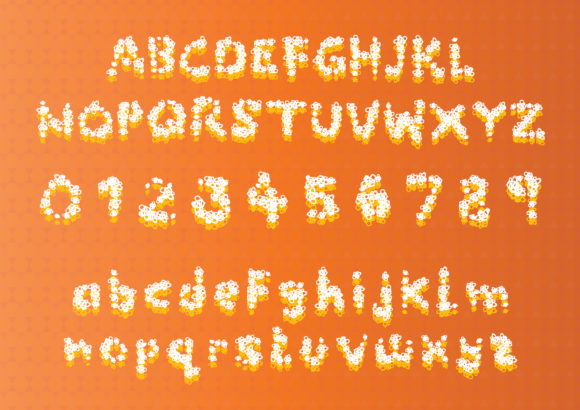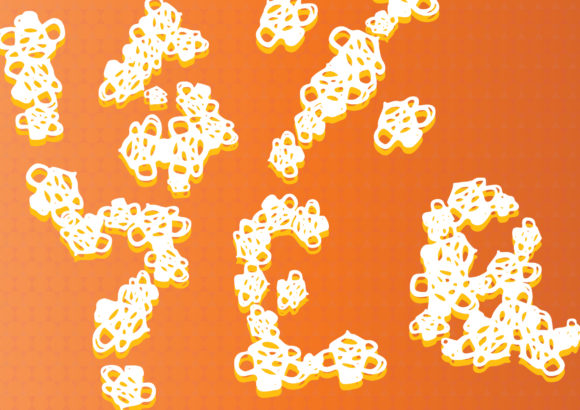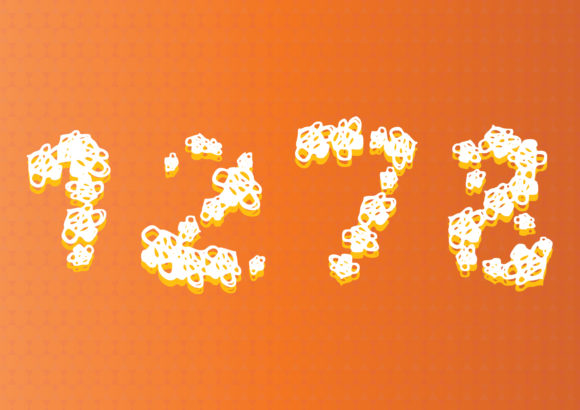
Discover the Buzz-worthy Bees Font
Remember that moment when you stumbled upon the perfect font for your next design project? It’s like finding a hidden treasure in a sea of digital assets. For designers, it’s a game-changer. And if you’re on the hunt for a font that adds a touch of whimsy to your creations, look no further than the Bees Font.
This charming display font is designed to bring a sense of playfulness and natural charm to your designs. Its hand-drawn style gives it a unique and organic feel that’s perfect for branding, packaging, and editorial projects. With the Bees Font, you can add a touch of personality to your work and make it stand out from the crowd.
Whether you’re a seasoned designer or just starting out, the Bees Font is a valuable addition to your toolkit. Its versatility and charm make it a great choice for a wide range of projects, from children’s books to eco-friendly brands.
Key Features of Bees Font
- Font Family: Bees Font is a unique, hand-drawn font family with 6 styles (Thin, Light, Regular, Medium, Bold, and Black) designed to resemble a honeycomb pattern.
- Character Set: The font family includes a wide range of characters, including uppercase and lowercase letters, numbers, punctuation marks, and special characters, making it suitable for various design applications.
- Resolution: Bees Font is designed to be scalable, allowing it to maintain its quality and aesthetic appeal at various resolutions, from low-resolution displays to high-resolution prints.
- Size: The font family includes 6 weights, each with its unique characteristics, allowing designers to choose the perfect weight for their design project.
- Unique Characteristics: Bees Font features a distinctive honeycomb pattern, giving it a unique and eye-catching appearance that sets it apart from other font families.
Bees Font Review
Overall, the Bees Font is a visually appealing and creative choice for designers looking for something unique. Here’s what I like about it:
- ✨ Unique style: The Bees Font features a quirky, hand-drawn aesthetic that adds a touch of whimsy to any design project.
- ✨ Playful flair: The font’s playful personality makes it perfect for projects that require a lighthearted or humorous tone.
- ✨ Customizable: The Bees Font comes with a range of customization options, allowing designers to adjust the font’s style to suit their specific needs.
- ⚠️ Limited legibility: The Bees Font’s unique style can make it difficult to read at smaller font sizes or in low-light environments.
- ⚠️ Limited compatibility: The font may not be compatible with all operating systems or software, which can cause issues for designers who need to use it in a variety of contexts.
Overall, I think the Bees Font is a great choice for designers who want to add a touch of personality to their projects. While it may have some limitations, its unique style and customizable options make it a valuable addition to any designer’s toolkit.
Bees Font is a playful and whimsical font that is perfect for children’s books, educational materials, and creative projects. Some common use cases include:
– Creating engaging titles and headings
– Designing children’s book covers and illustrations
– Adding a touch of whimsy to educational materials and presentations